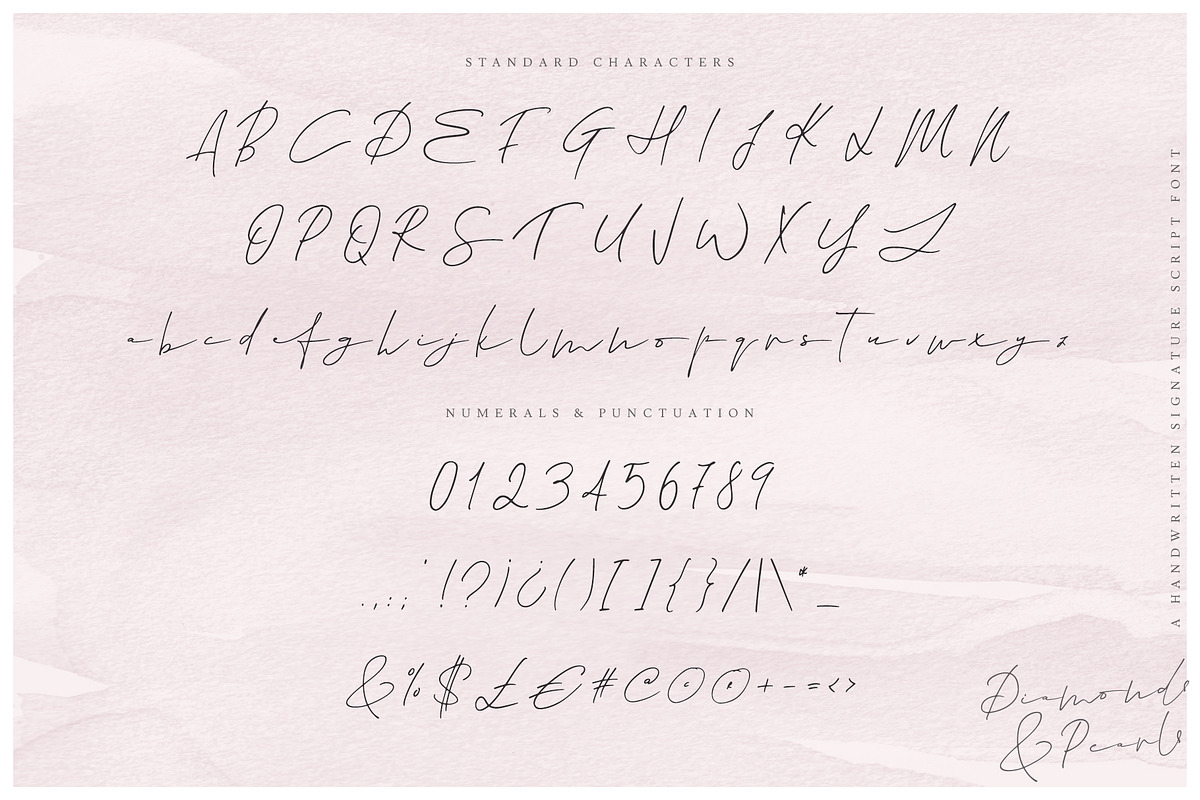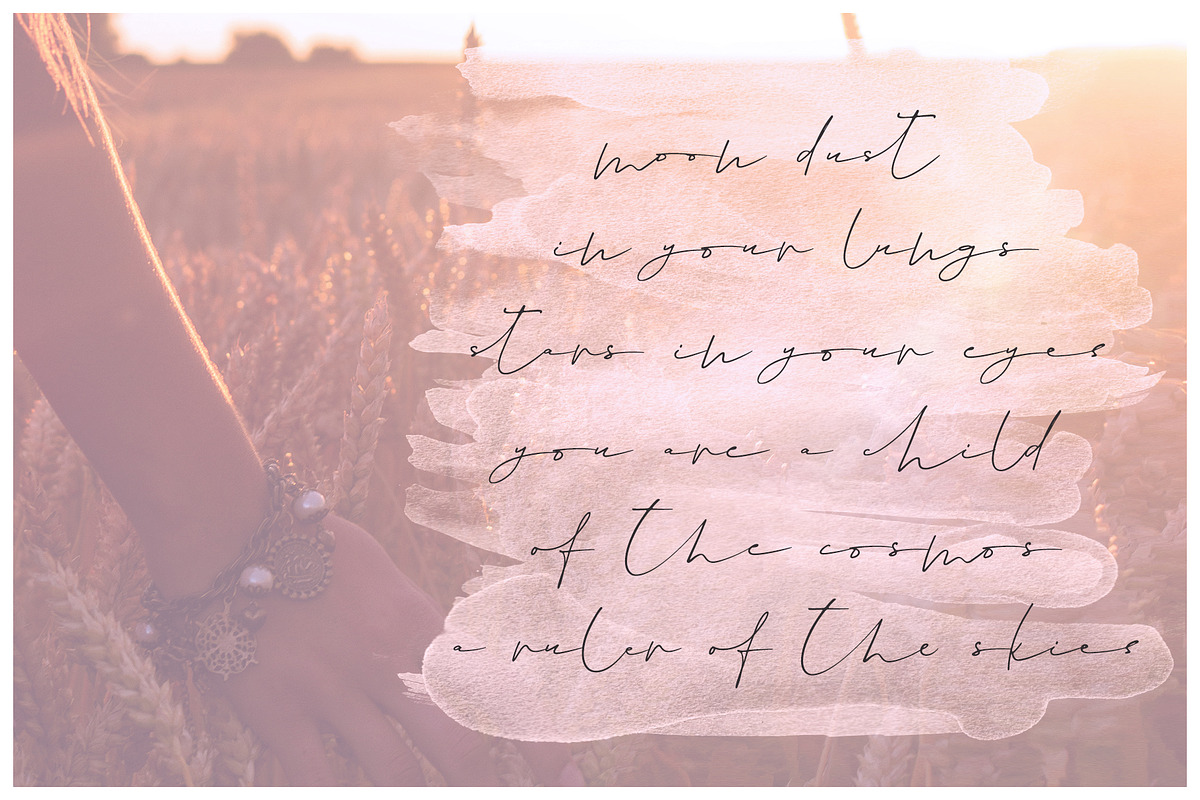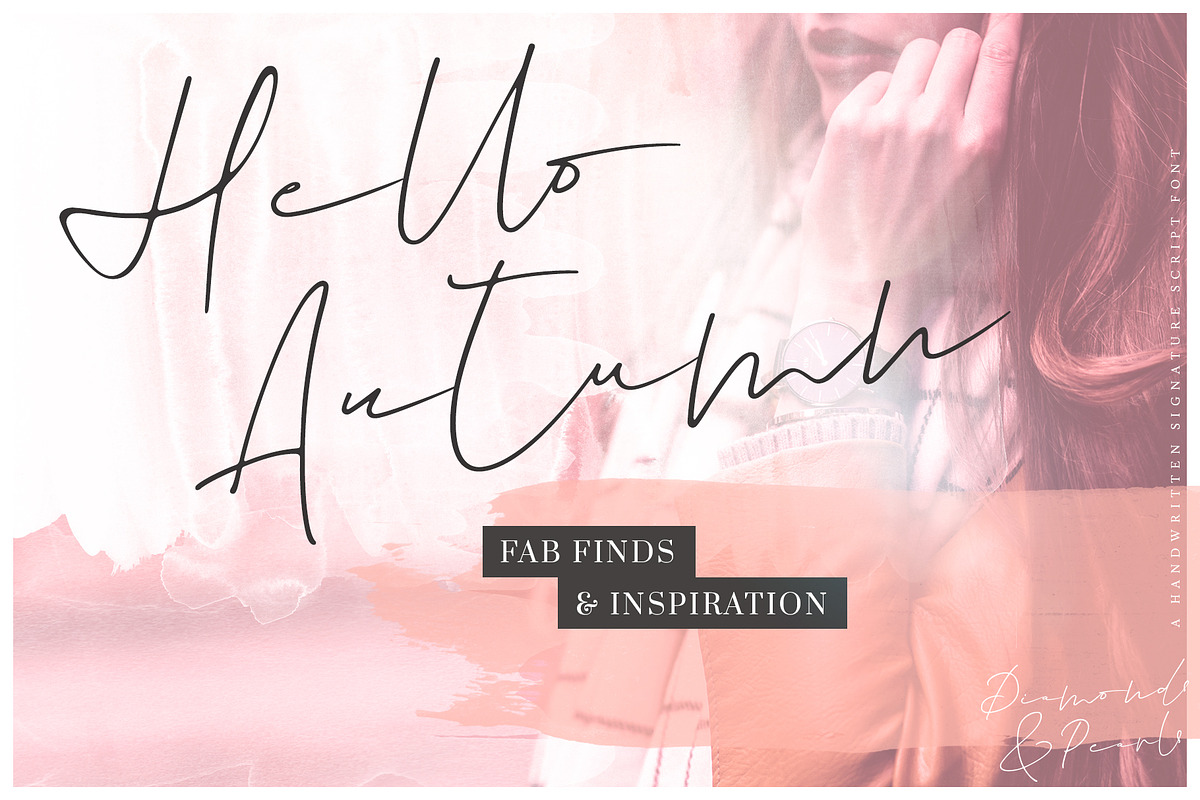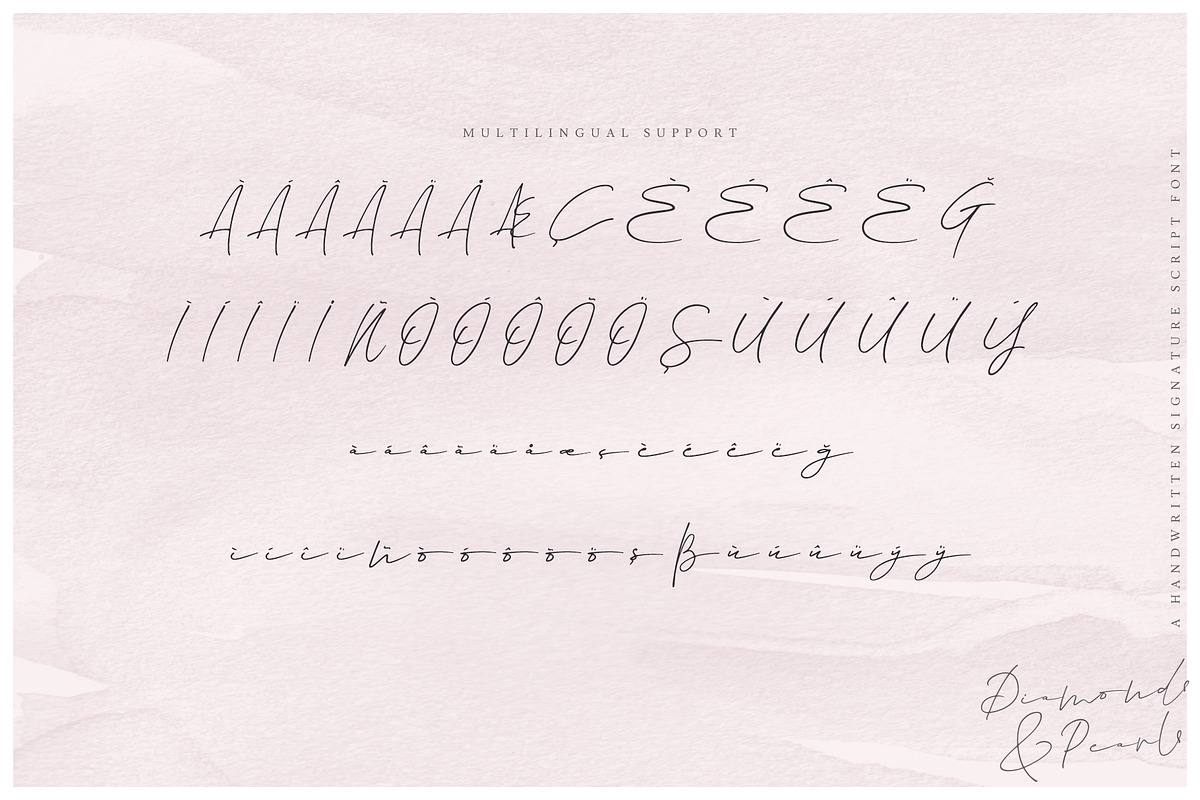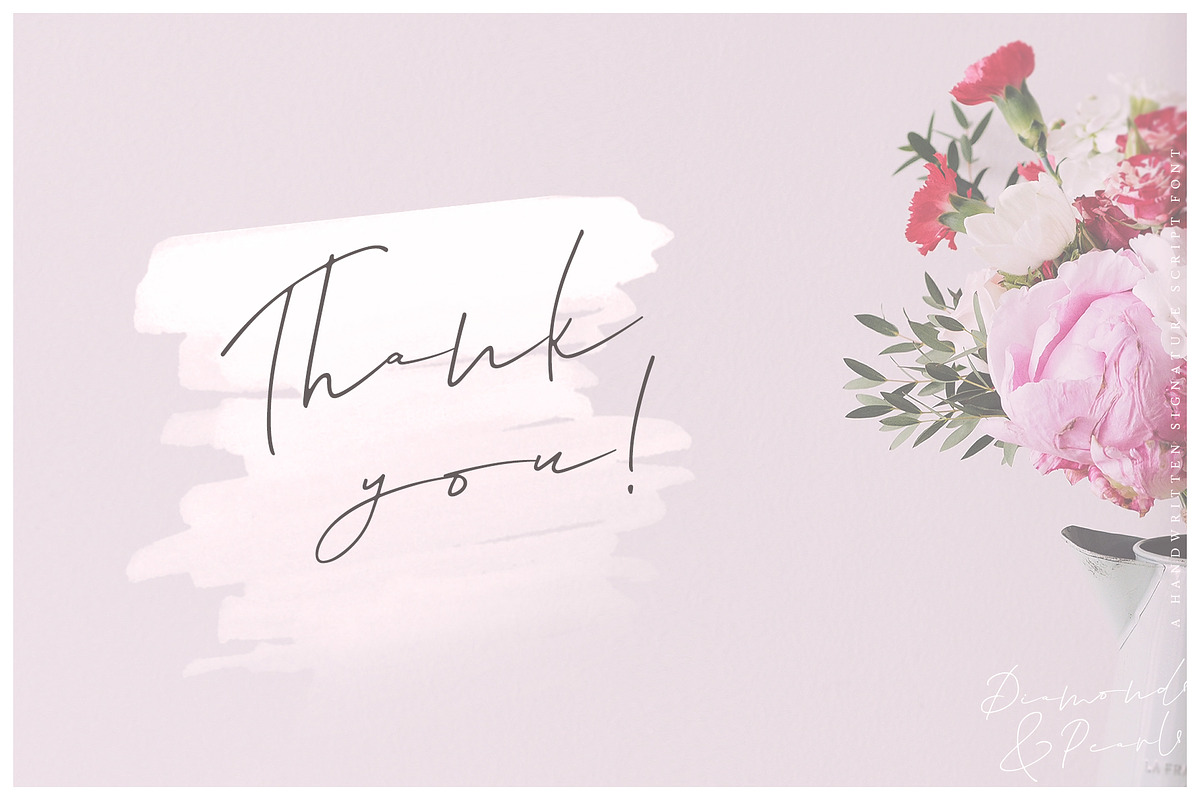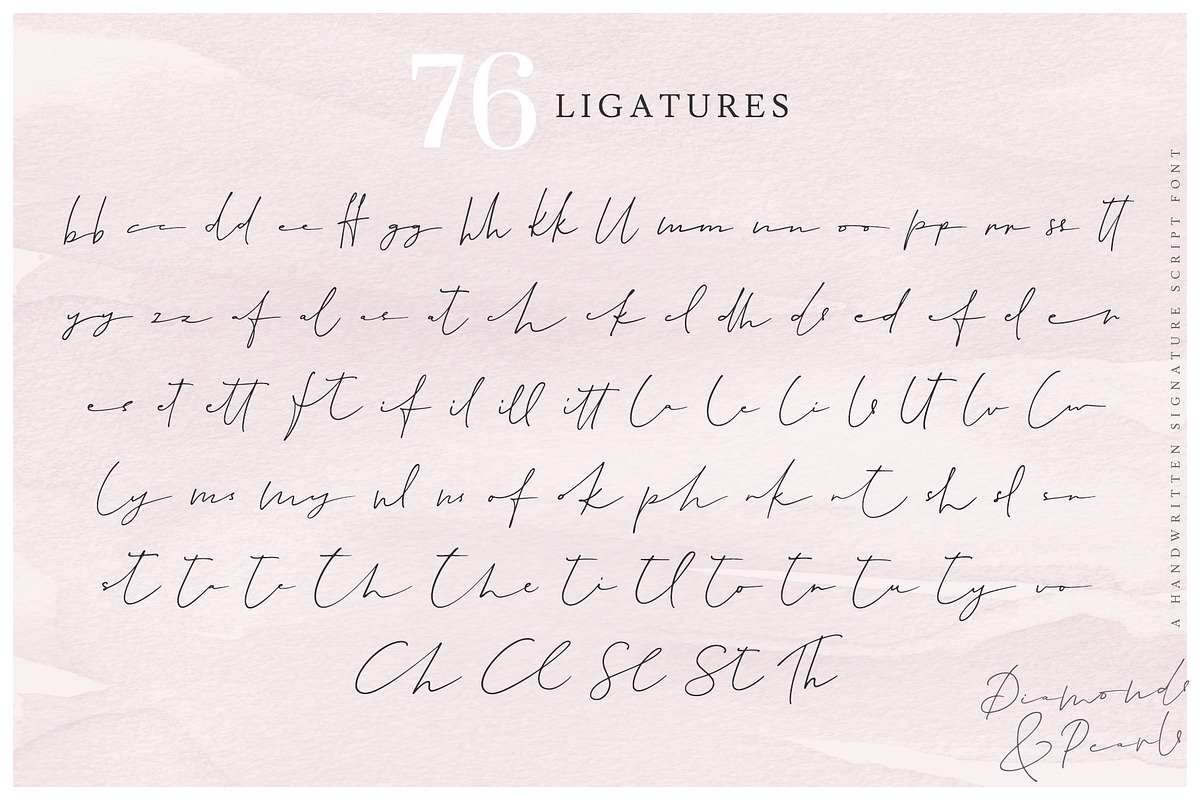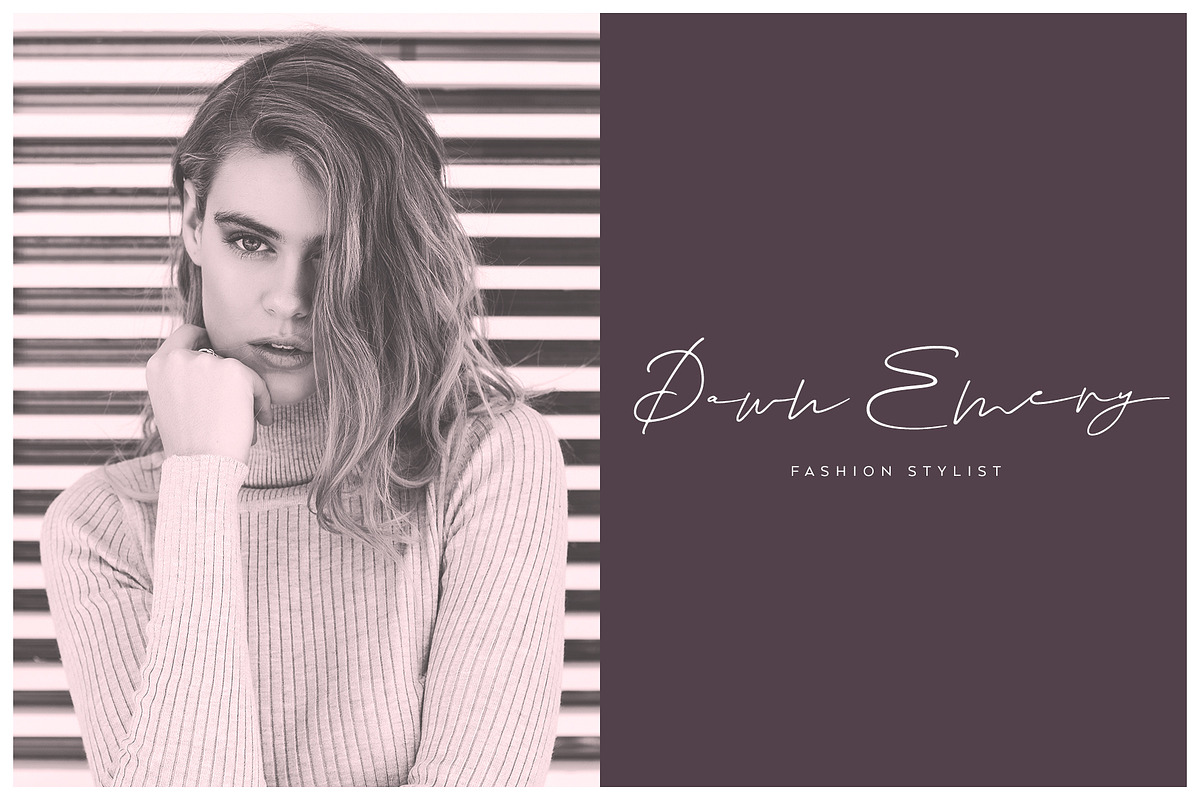
Diamonds & Pearls
Diamonds & Pearls is a luxurious and carefree signature script font that was lovingly created by hand. Included are 76 stylish ligatures that perfectly recreate the ‘handwritten’ feeling.
- Standard Characters
- Multilingual Characters such as à á ã â æ ç ğ ß ý…